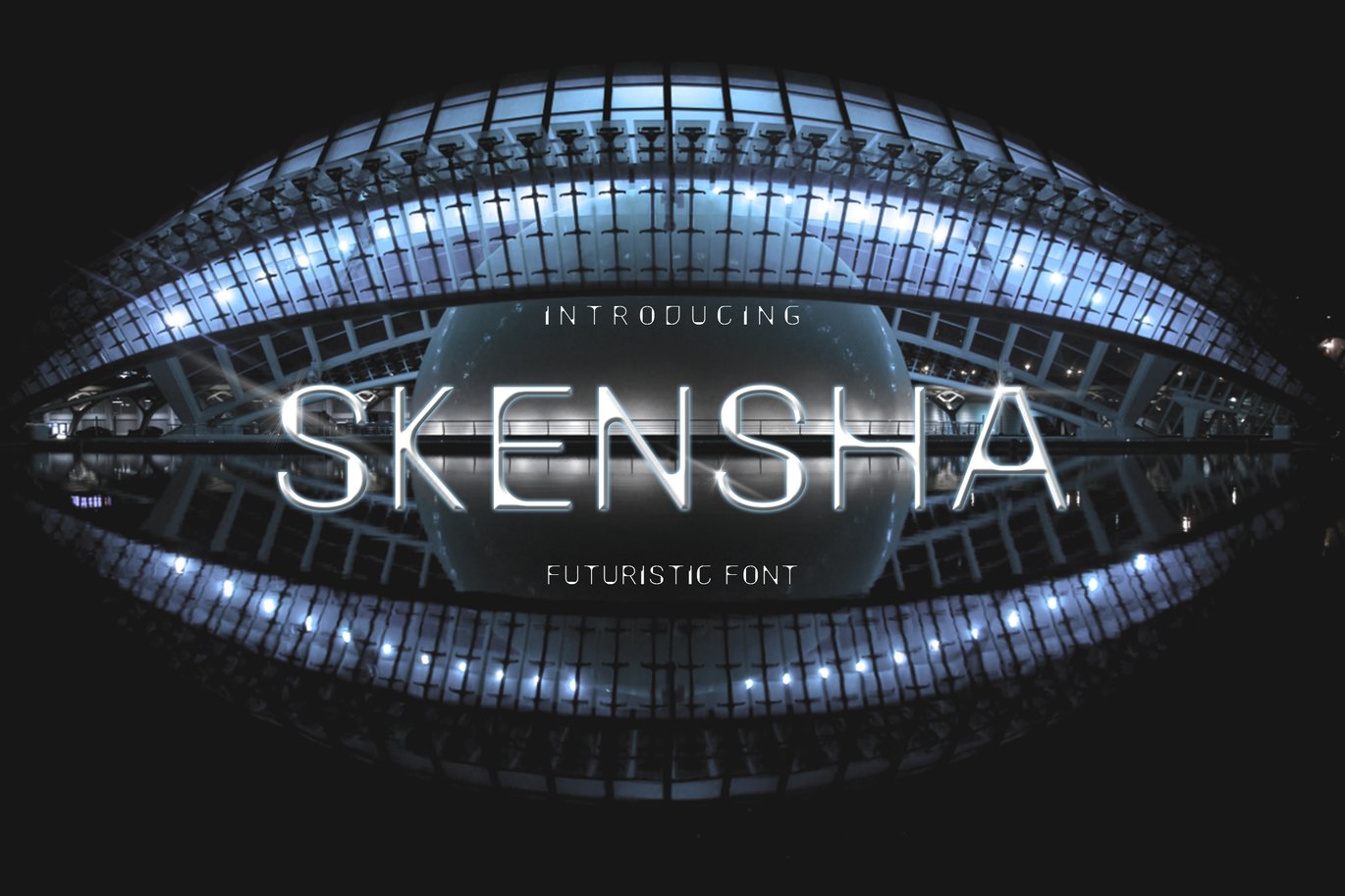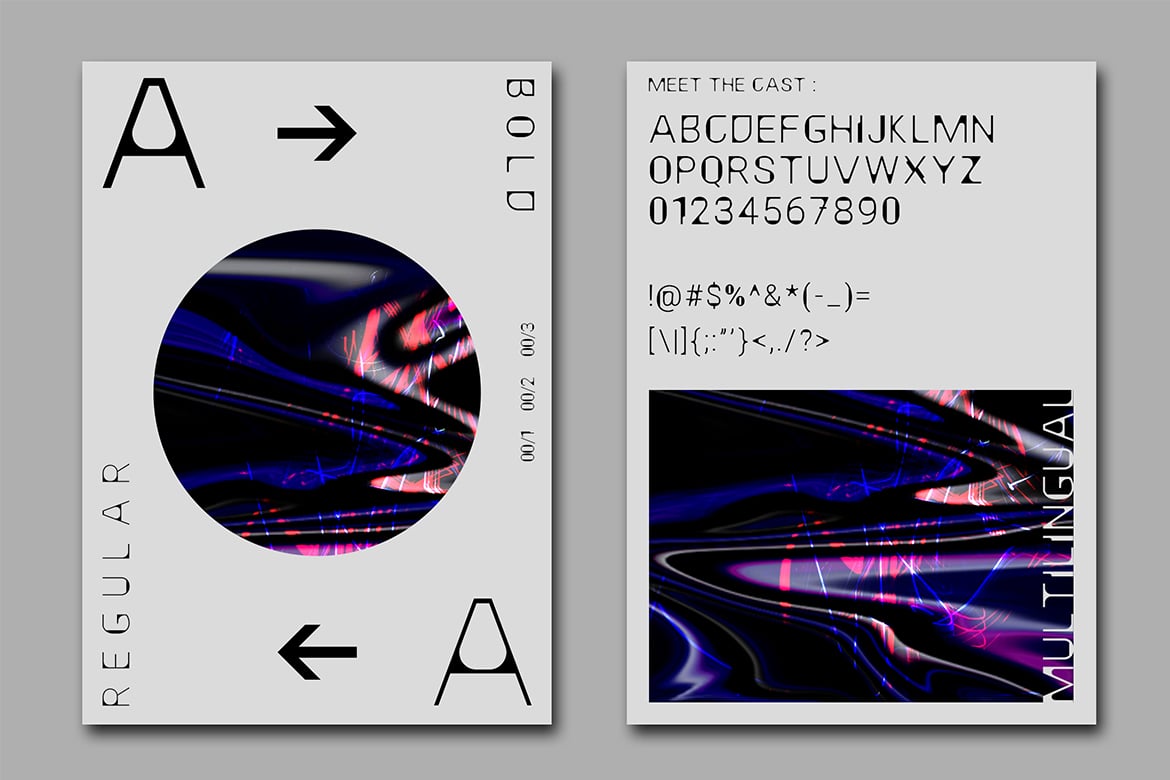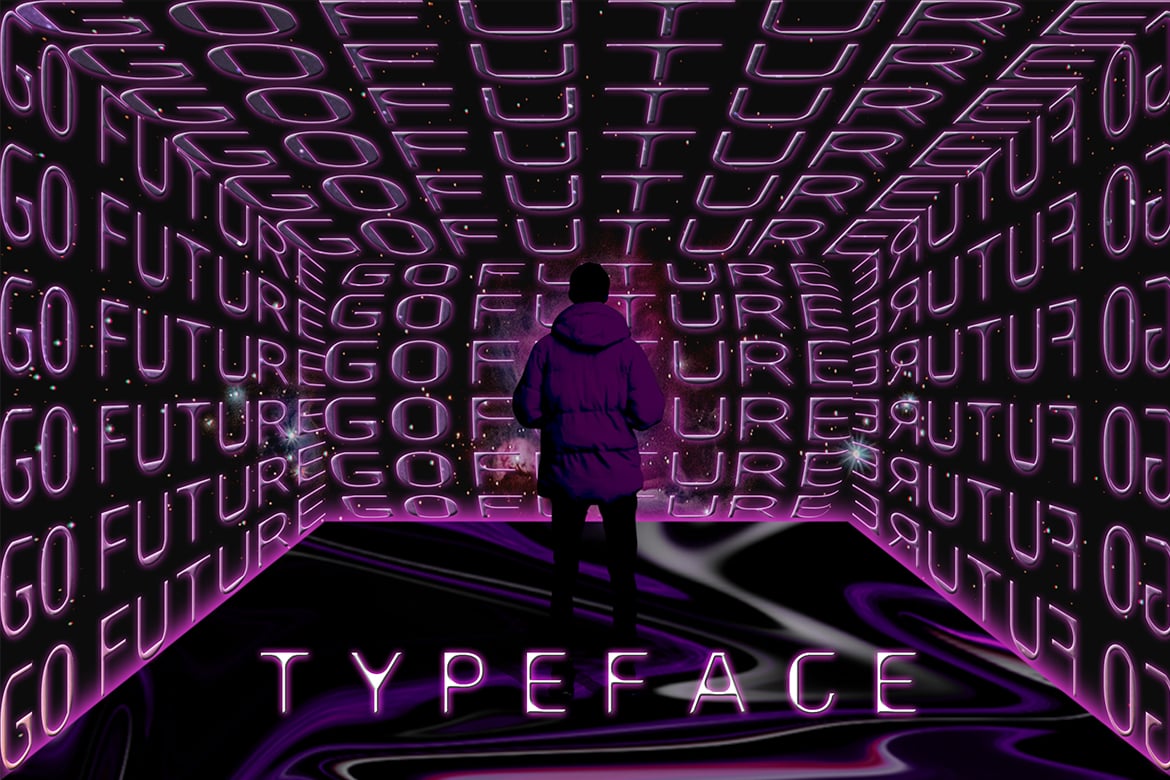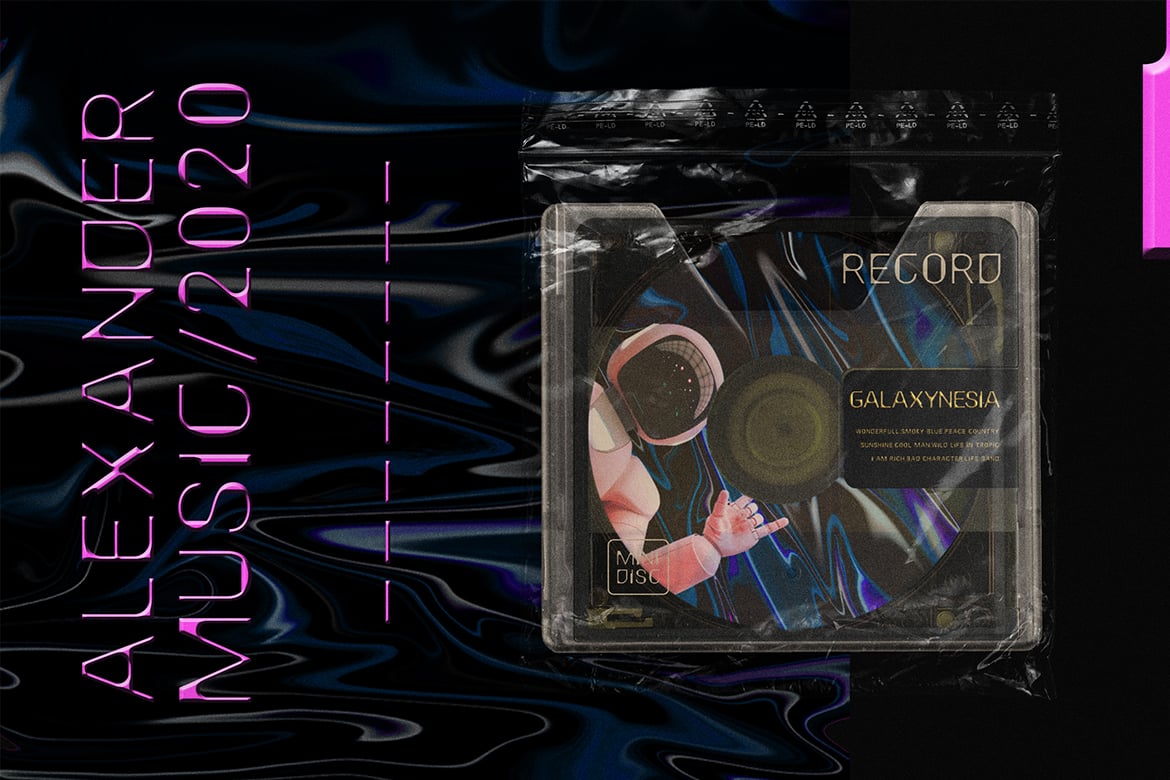
Skensha – Futuristic Font
Skensha font is a Modern Sans Serif Font Suitable for any graphic designs such as branding materials, t-shirt, print, business cards, logo, poster, t-shirt, photography, quotes, coffe shop.etc
CHARACTER DETAILS
- Uppercase alphabet A-Z
- Numbers 0-9
- Provide Regular and bold